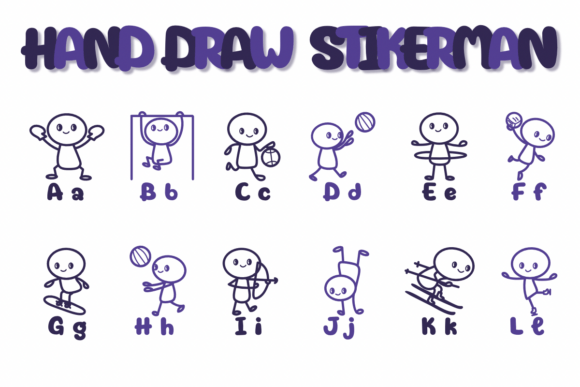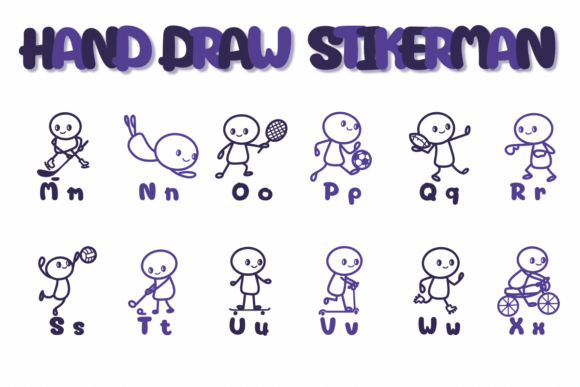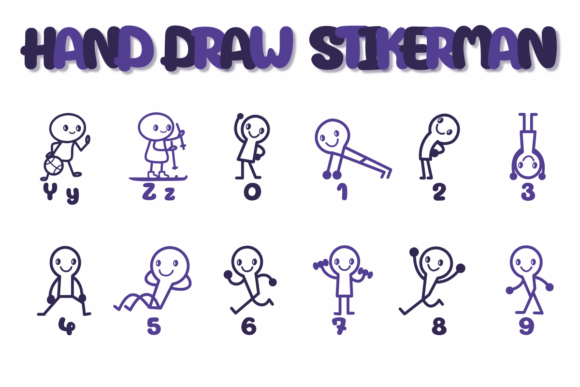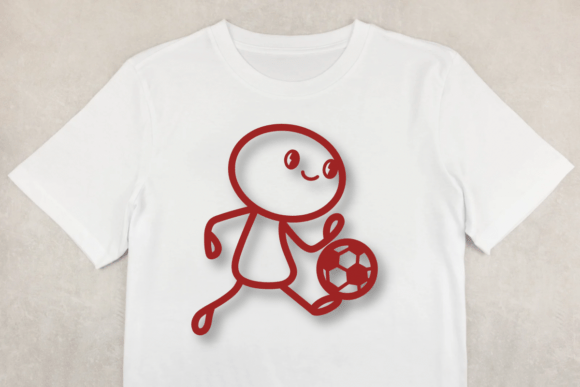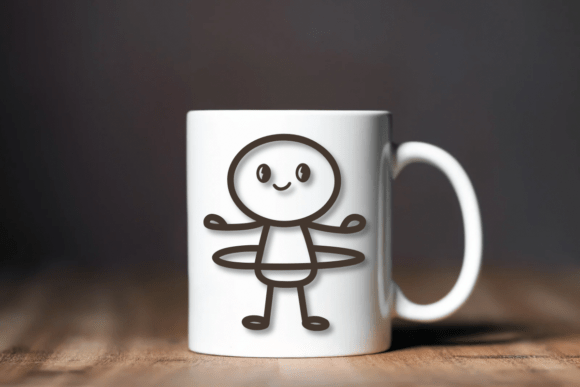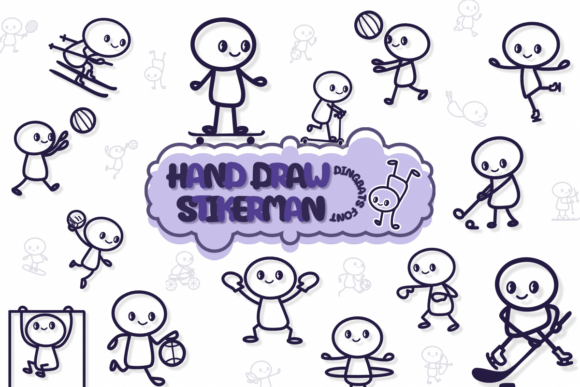
Introducing Hand Draw Stikerman Font: Add a Playful Touch to Your Designs
Are you looking for a unique and engaging way to add illustrations to your designs? Look no further than the Hand Draw Stikerman Font. This whimsical dingbats font is filled with delightful stick figure characters engaged in various sports and activities, perfect for bringing a playful and energetic vibe to any design.
What is Hand Draw Stikerman Font?
Hand Draw Stikerman Font is a specially designed font that features a wide range of stick figure characters participating in different sports and activities. From soccer and basketball to surfing and yoga, this font has got you covered. Each character is carefully hand-drawn to ensure a playful and energetic feel, making it perfect for a variety of design projects.
Perfect for Sport-Themed Designs
If you’re working on a sport-themed design project, Hand Draw Stikerman Font is the perfect choice. With its wide range of sports-related illustrations, you can easily add a touch of personality to your designs. Whether you’re creating a logo, brochure, or social media post, this font is sure to make your design stand out.
Ideal for Educational Materials
Hand Draw Stikerman Font is also ideal for educational materials, such as textbooks, worksheets, and activity sheets. The illustrations can help to break up text and make learning more engaging and fun for students. Plus, the font’s playful vibe can help to create a positive and uplifting atmosphere in the classroom.
Kids’ Projects and Digital Stickers
Kids’ projects and digital stickers are another great use for Hand Draw Stikerman Font. The illustrations are perfect for creating fun and engaging projects, such as coloring pages, activity sheets, and DIY crafts. You can also use the font to create digital stickers for scrapbooking, planners, and other digital projects.
Comics and Cartoons
If you’re a comic artist or cartoonist, Hand Draw Stikerman Font is a great addition to your design toolkit. The illustrations can be used to create engaging and humorous comics, cartoons, and graphic novels. The font’s playful vibe can help to bring your characters to life and add a touch of personality to your work.
Easy to Use
One of the best things about Hand Draw Stikerman Font is how easy it is to use. Simply type to insert an illustration – no drawing required! This makes it perfect for designers and crafters who may not have extensive design experience. The font is also compatible with most design software, making it easy to integrate into your workflow.
- Whimsical dingbats font featuring stick figure characters
- Wide range of sports and activities illustrations
- Perfect for sport-themed designs, educational materials, kids’ projects, digital stickers, and comics
- Playful and energetic vibe
- Easy to use – simply type to insert an illustration
Get Creative with Hand Draw Stikerman Font
In conclusion, Hand Draw Stikerman Font is a unique and engaging font that can add a playful and energetic vibe to any design. With its wide range of sports and activities illustrations, this font is perfect for a variety of design projects, from sport-themed designs to educational materials and kids’ projects. So why not give it a try and see how it can bring your designs to life?